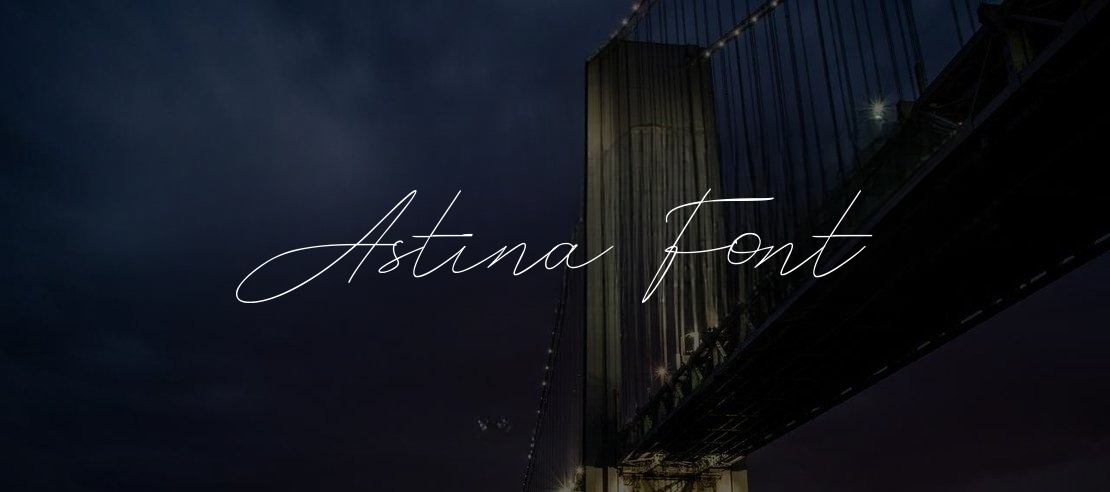
Astina Font is a calligraphy typeface loaded with extra ligatures for your personal designs and projects. Astina is a beautifully crafted typeface for logos, branding designs, Digital Lettering Arts, T-shirts, Apparel, posters, magazines, signs, advertising design, and any project that needs a touch of calligraphy.
The regular style gives your project a calligraphic appearance. The significant features include uppercase, lowercase standard characters, Punctuation, numerals, characters, and much more.
The typeface is fully accessible without additional design software besides includes a wide range of multilingual characters. The stylish alternations and ligatures make the typeface a perfect and classic partner with Golden Gates Font. Both can be used for any project.
Creator of Astina Font
The creator of the beautiful typeface is Rochart Studio. He is a famous designer and a great thinker.
| Name | Astina Font |
| Style | Calligraphy |
| Designer | Rochart Studio |
There are various fonts that match with each other. Golden Gates and Chelsea Olivia Fonts have a similar appearance to this typeface.